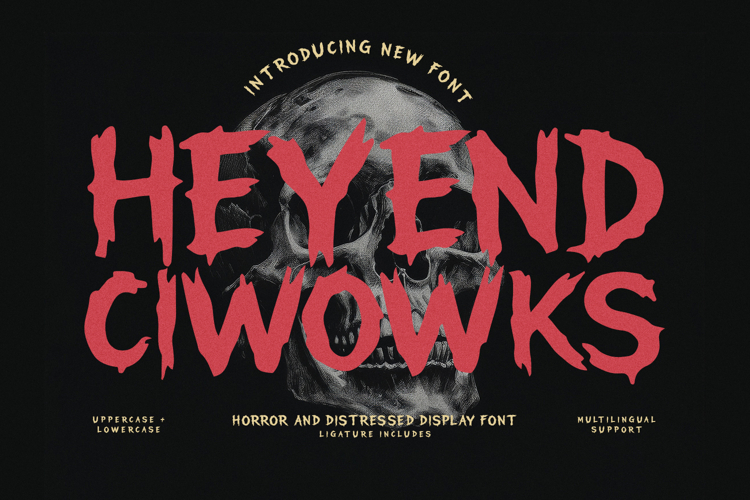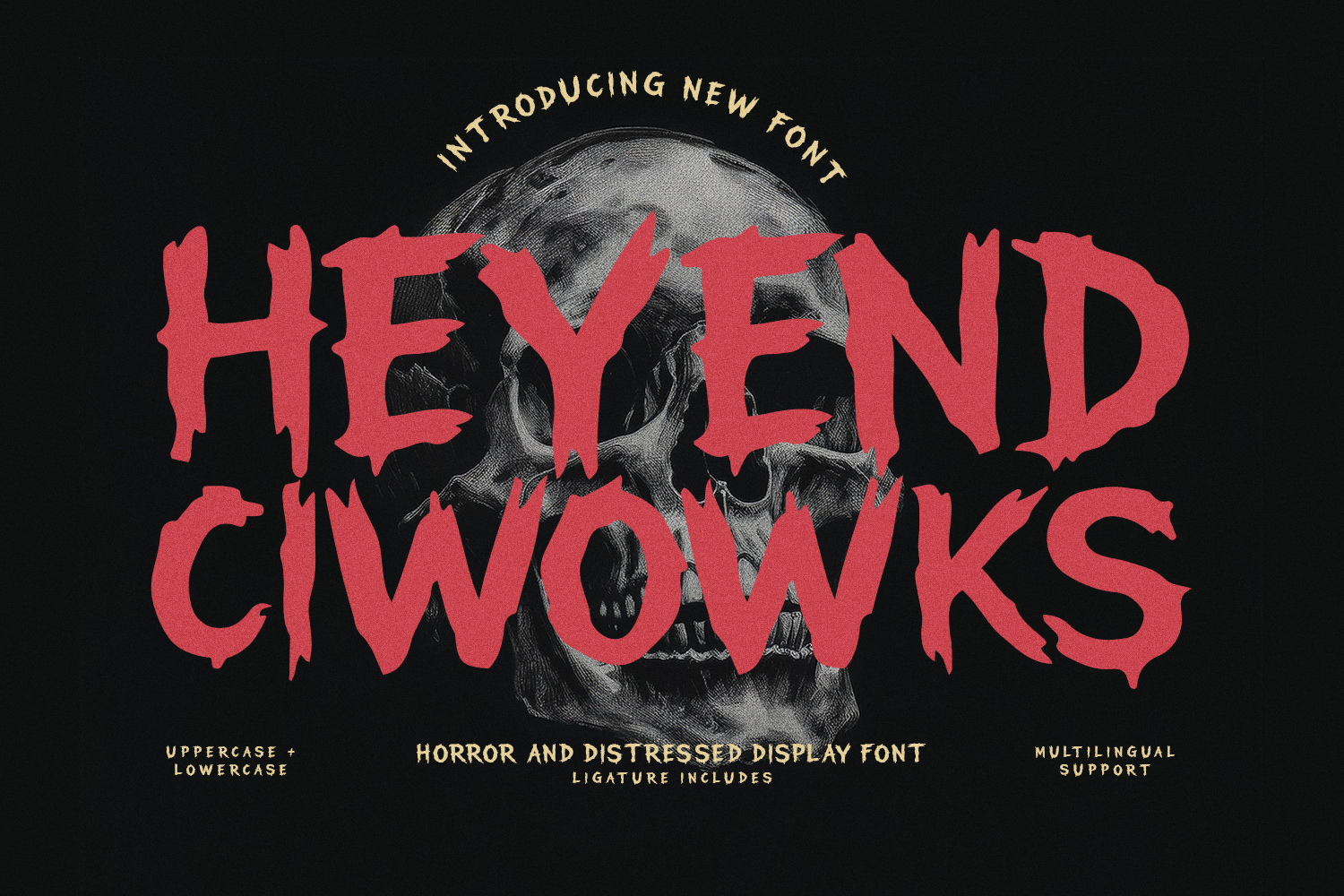
Heyend Ciwowks Horror Distressed
Heyend Ciwowks is a bold, aggressive display font meticulously designed to evoke a sense of terror, suspense, and raw energy. Featuring jagged edges, a heavily textured finish, and uneven, erratic line weights, this typeface perfectly captures a gritty, weathered aesthetic.
It includes uppercase and lowercase characters, standard numerals, punctuation, multilingual support, and unique ligatures that allow for dynamic, unpredictable letter combinations. Ideal for striking visual headers, movie titles, poster designs, editorial covers, gaming branding, and any creative project seeking a dark, thrilling, or monstrously impactful presence.